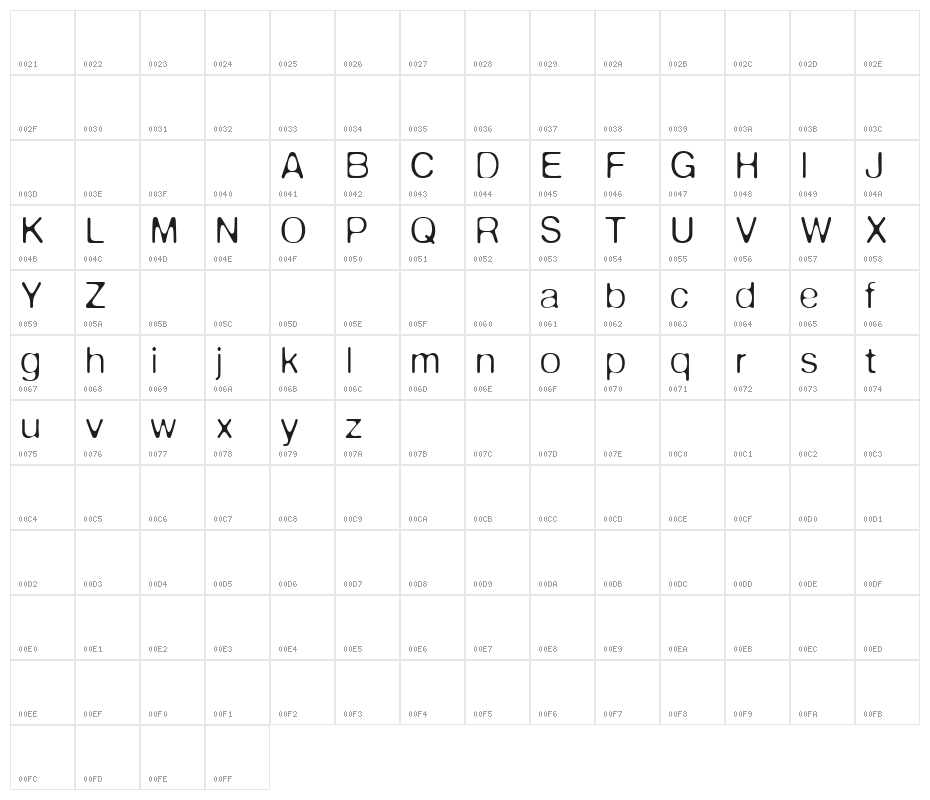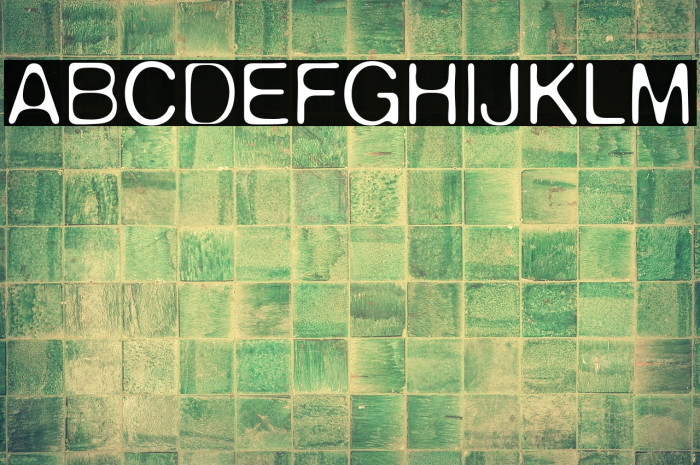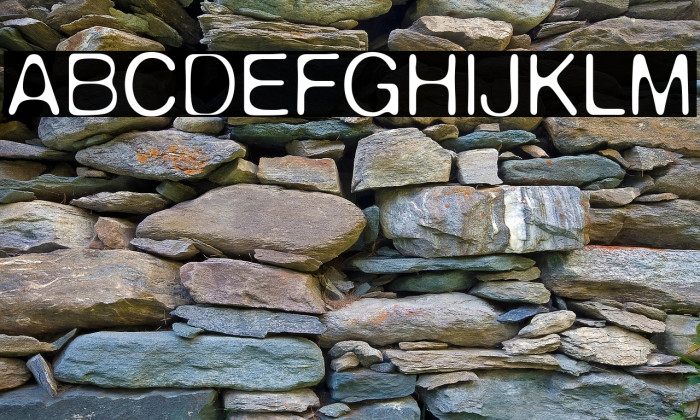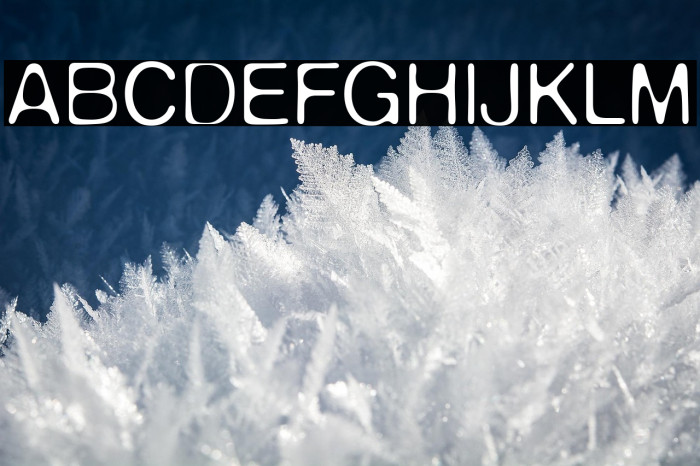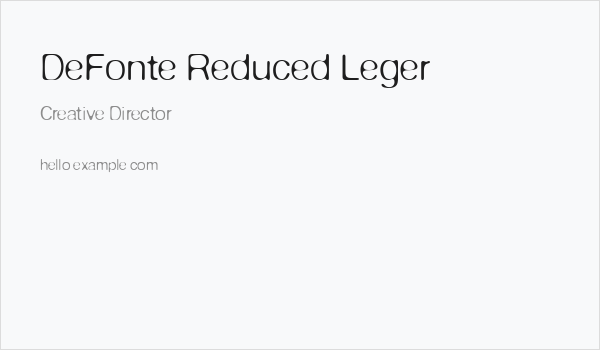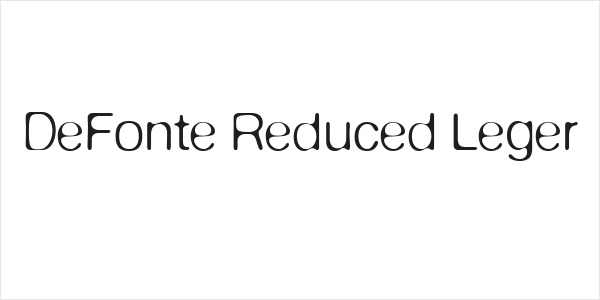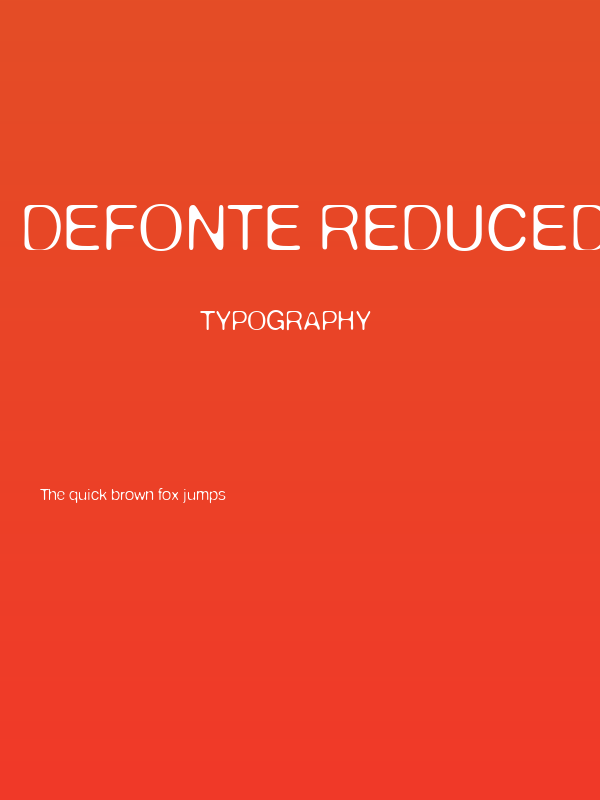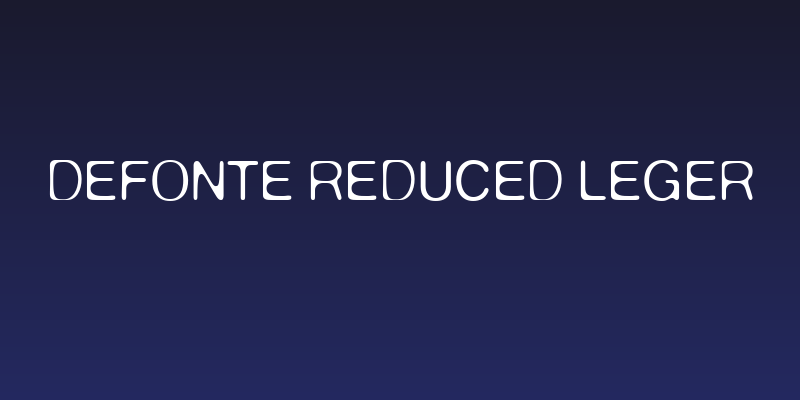
DeFonte Reduced Leger Font
DeFonte Reduced Leger Description
This font features a unique blend of rounded and slightly elongated characters, giving it a playful yet modern appearance. The letters have a consistent stroke width, contributing to a clean and uniform look. The rounded edges soften the overall feel, making it approachable and friendly. The uppercase letters maintain a consistent height, while the lowercase letters have a slightly taller x-height, enhancing readability. The numerals and special characters follow the same design principles, ensuring cohesion across all elements. This font is versatile, suitable for both digital and print media.
| Proposed Projects | Ideal for branding, children's books, digital interfaces, and casual print materials. |